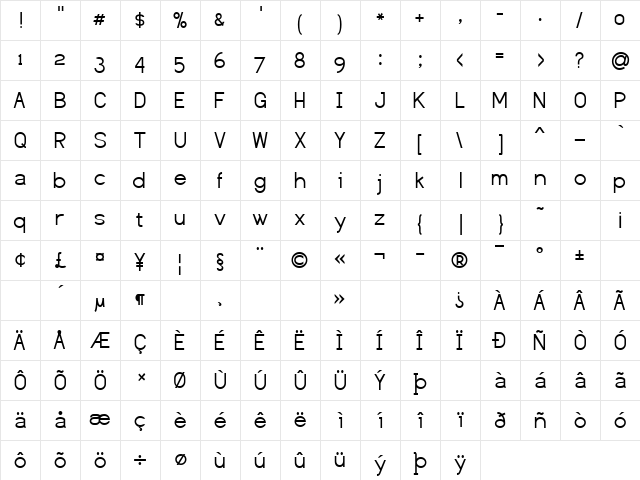
Dustismo Regular
Design Context for Dustismo Typeface
Dustismo takes a measured approach to typography — its balanced proportions and neutral character make it a reliable workhorse for both digital and print work.